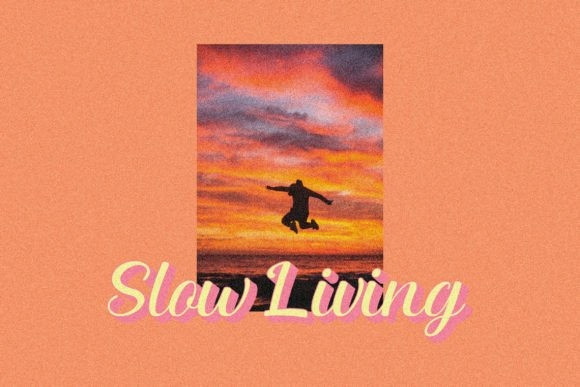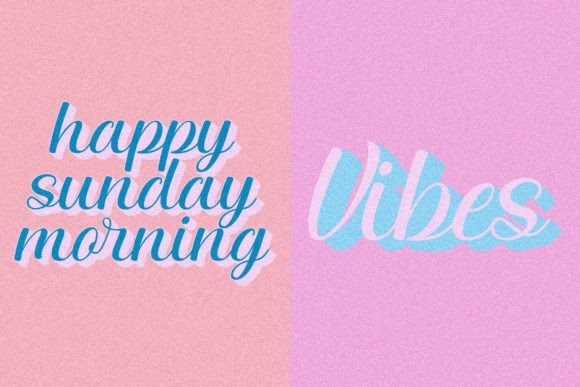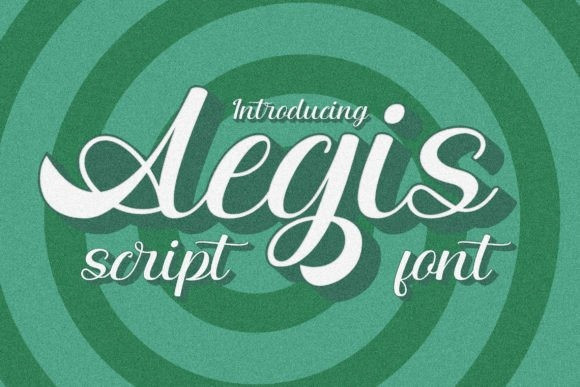
Aegis Font
Aegis Script Font is a modern handwritten font with a clean vintage style. This font brings a nostalgic feel, perfect for branding, logos, posters, and any design idea you have!